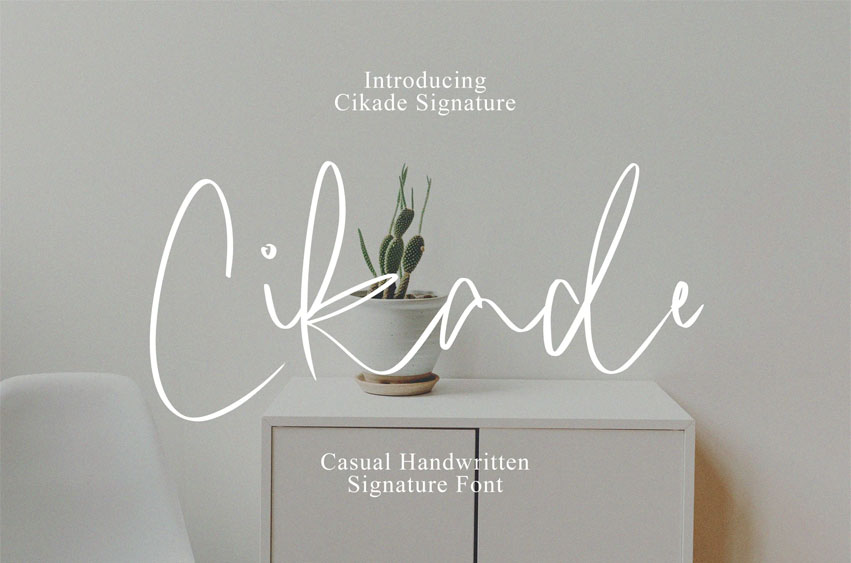
Cikade Font with a handmade Signature style, decorative characters and a dancing baseline! Cikade Signature with 150+ glyphs. The alternative characters were divided into several Open Type features such as Swash, Stylistic Sets, Stylistic Alternates, and Ligature.
Cikade Signature Features :
Uppercase & Lowercase International Languange & Symbols Support Punctuation & Number PUA Unicode Range Standard Ligatures Discretionary Ligatures Stylistic Alternates Stylistic Set.